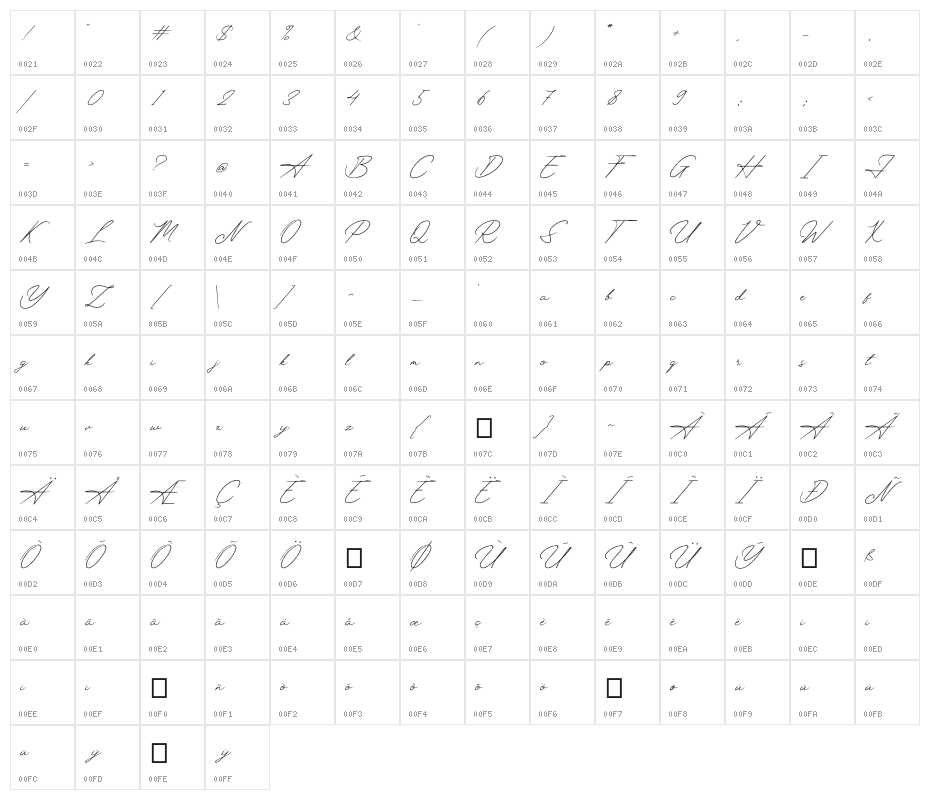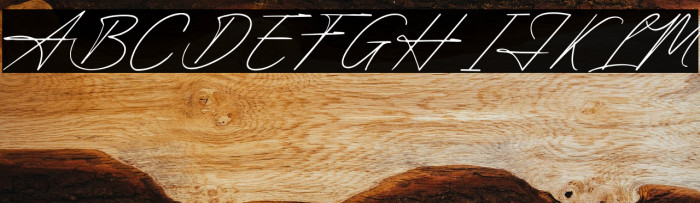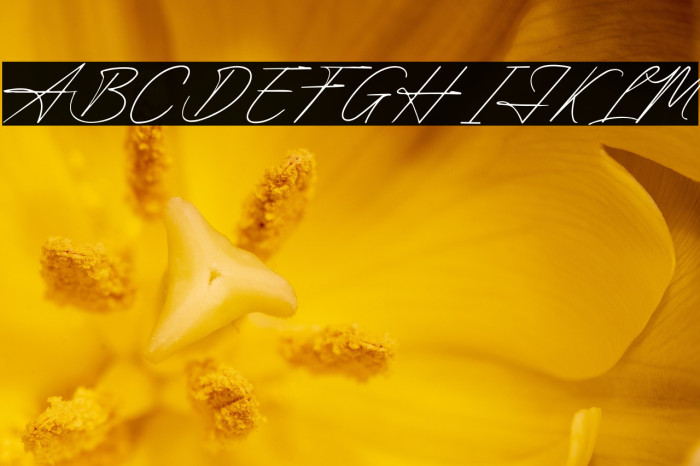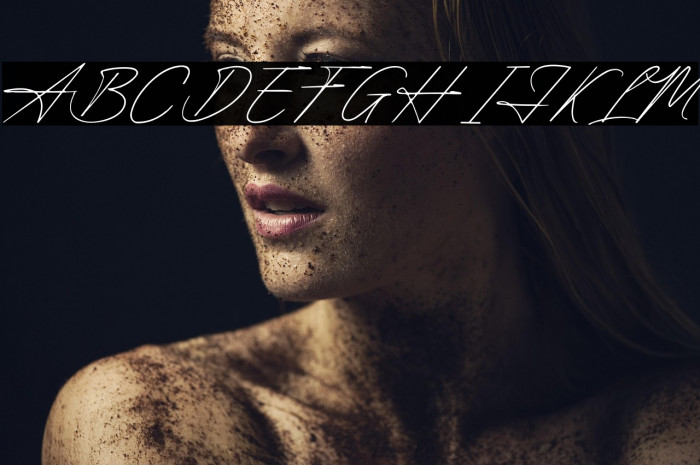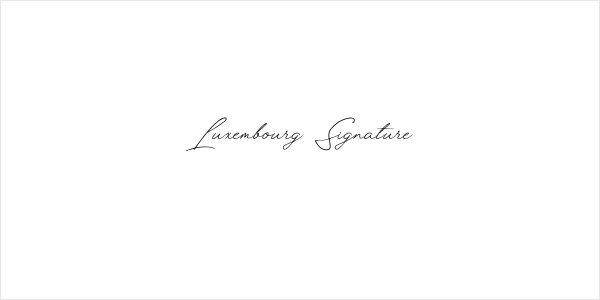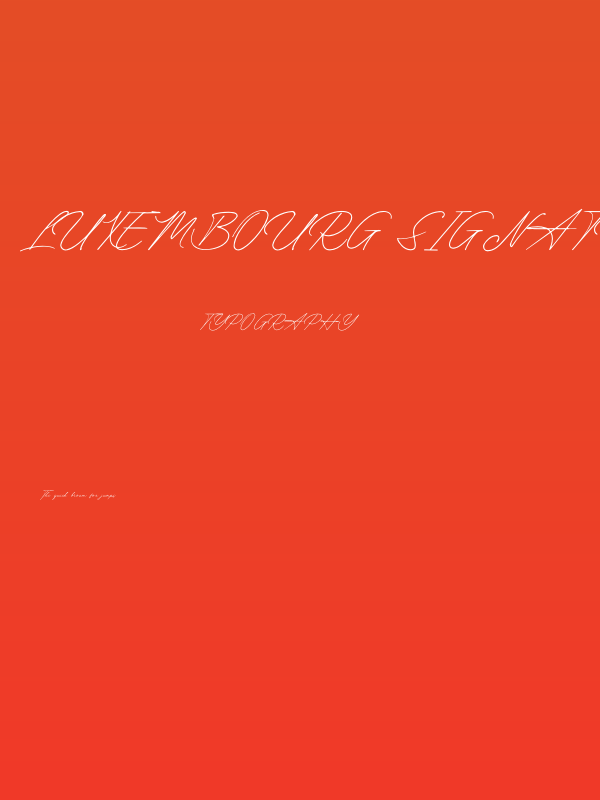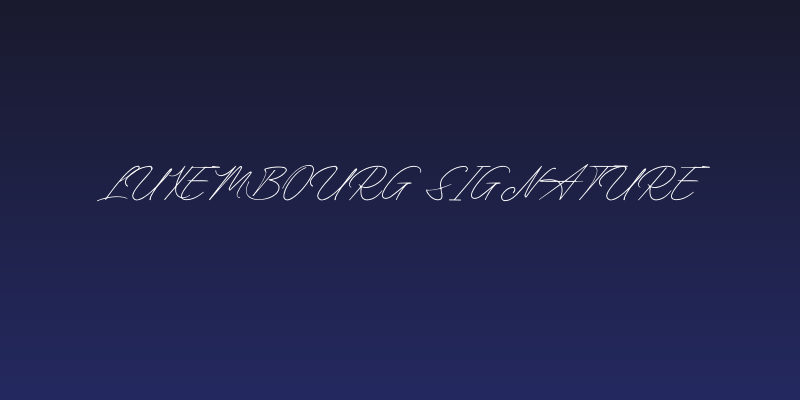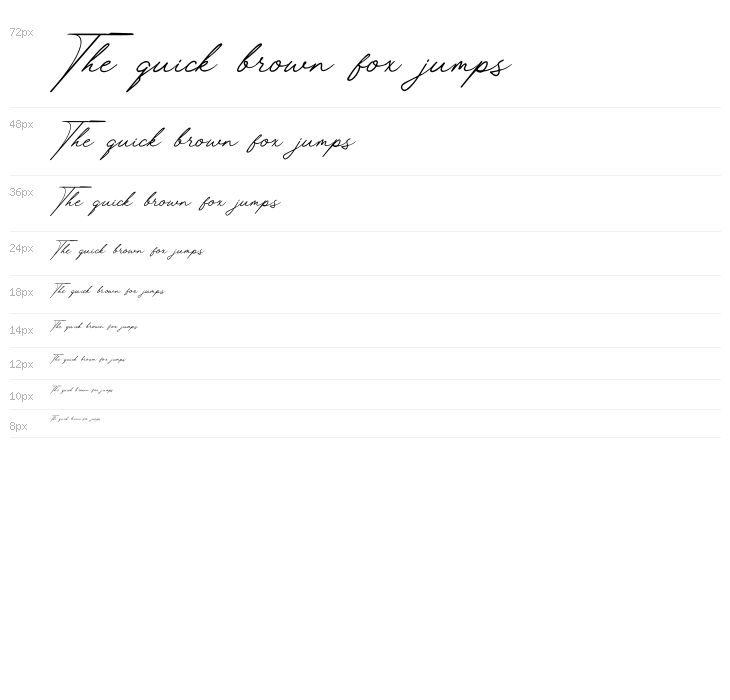
Luxembourg Signature Font
Luxembourg Signature Description
This elegant script font exudes sophistication and fluidity, characterized by its graceful, flowing lines and delicate curves. Each letter seamlessly connects to the next, creating a harmonious and continuous script that mimics the fluidity of a handwritten signature. The uppercase letters are ornate and slightly larger, adding a touch of grandeur, while the lowercase letters maintain a consistent rhythm and balance. The numerals and special characters are crafted with the same attention to detail, ensuring a cohesive look across all elements. This font's refined style makes it ideal for projects that require a personal and elegant touch.
| Overall Style | Elegant, Handwritten |
| Use Case | Logos, Invitations, Stationery |
| Proposed Projects | Ideal for wedding invitations, luxury branding, personal stationery, and elegant logos. |